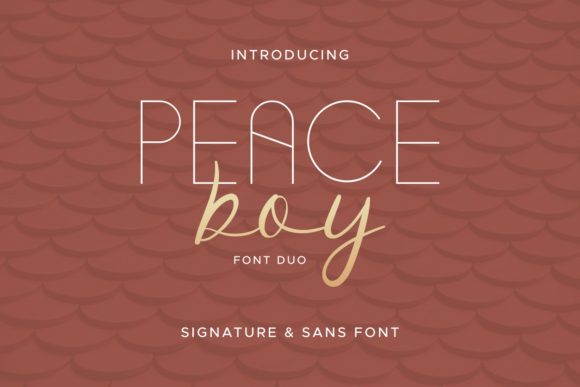
Step into a world of contemporary elegance with Peace Boy Font, a unique duo font that masterfully blends the charm of sans serif and the allure of script. Prepare to be captivated as this extraordinary font transforms your creative visions into captivating realities.
With its innate versatility, Peace Boy Font effortlessly adapts to a boundless spectrum of design projects, imbuing them with an aura of sophisticated charm. Whether you're crafting wedding invitations that exude timeless romance or designing logos that radiate modern flair, this font is your ultimate creative ally.
Picture the enchantment of your wedding video, where the titles dance across the screen, interwoven with the graceful strokes of Peace Boy Font. Every frame will be infused with a touch of magic, capturing the essence of your special day with unparalleled beauty.
Unleash your creativity and let Peace Boy Font guide you to new heights of design excellence. Its seamless harmony of styles ensures that your projects will stand out from the crowd, leaving an indelible mark on all who behold them.
Embrace the transformative power of Peace Boy Font and witness the metamorphosis of your creative endeavors. Prepare to be mesmerized as ordinary designs blossom into masterpieces, captivating the hearts and minds of your audience.